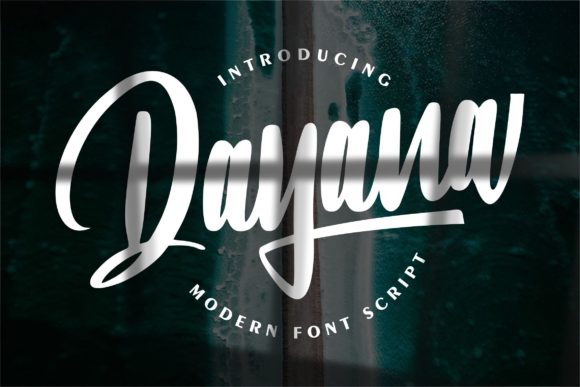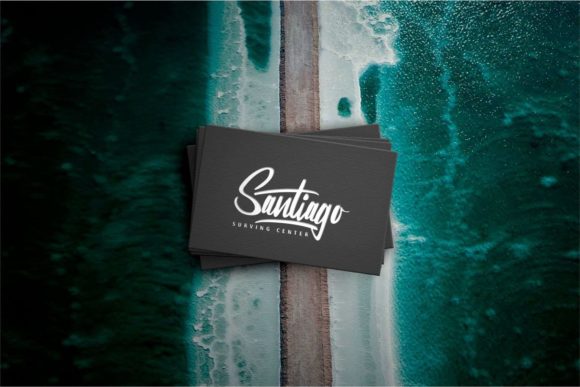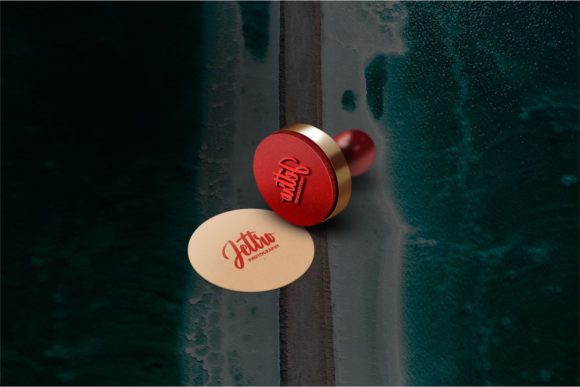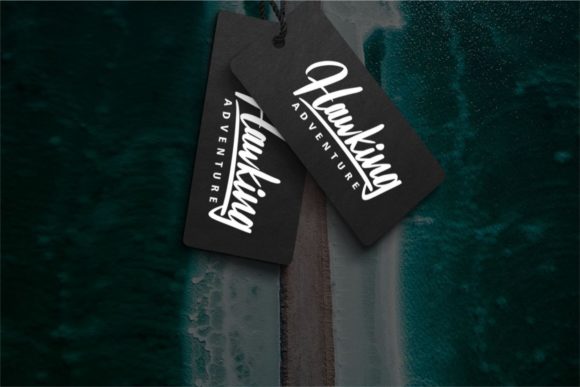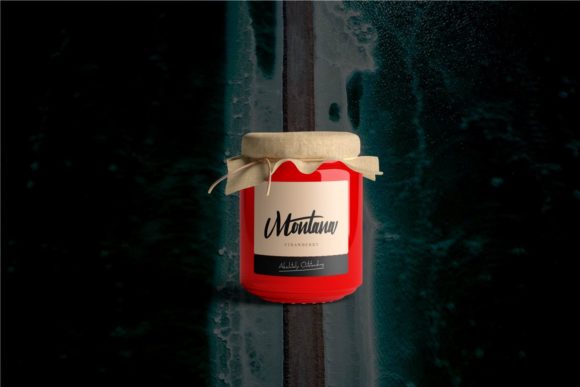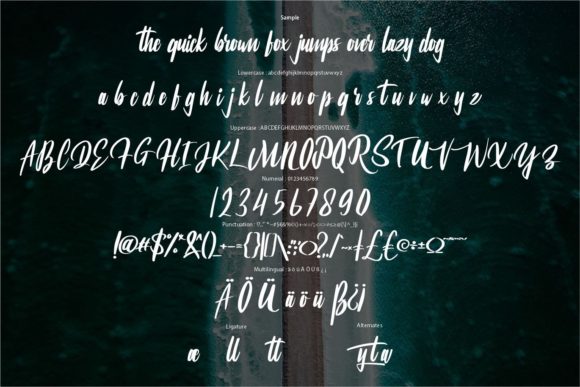
Dayana Font
About Dayana Font
Dayana is a paint brushed and beautiful script font. Fall for its ravishing style and use it to create gorgeous wedding invitations, beautiful stationary art, eye-catching social media posts, and much more!